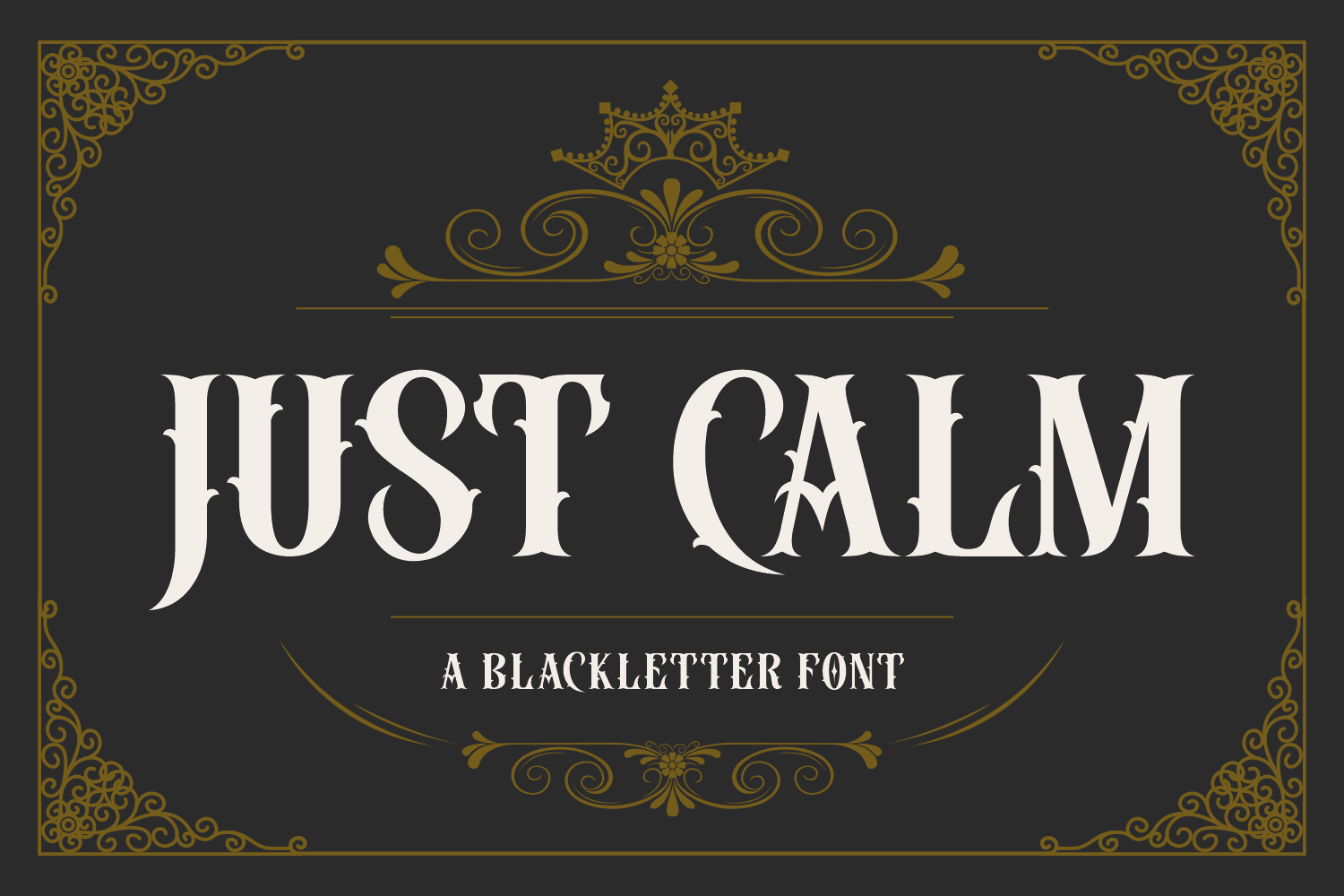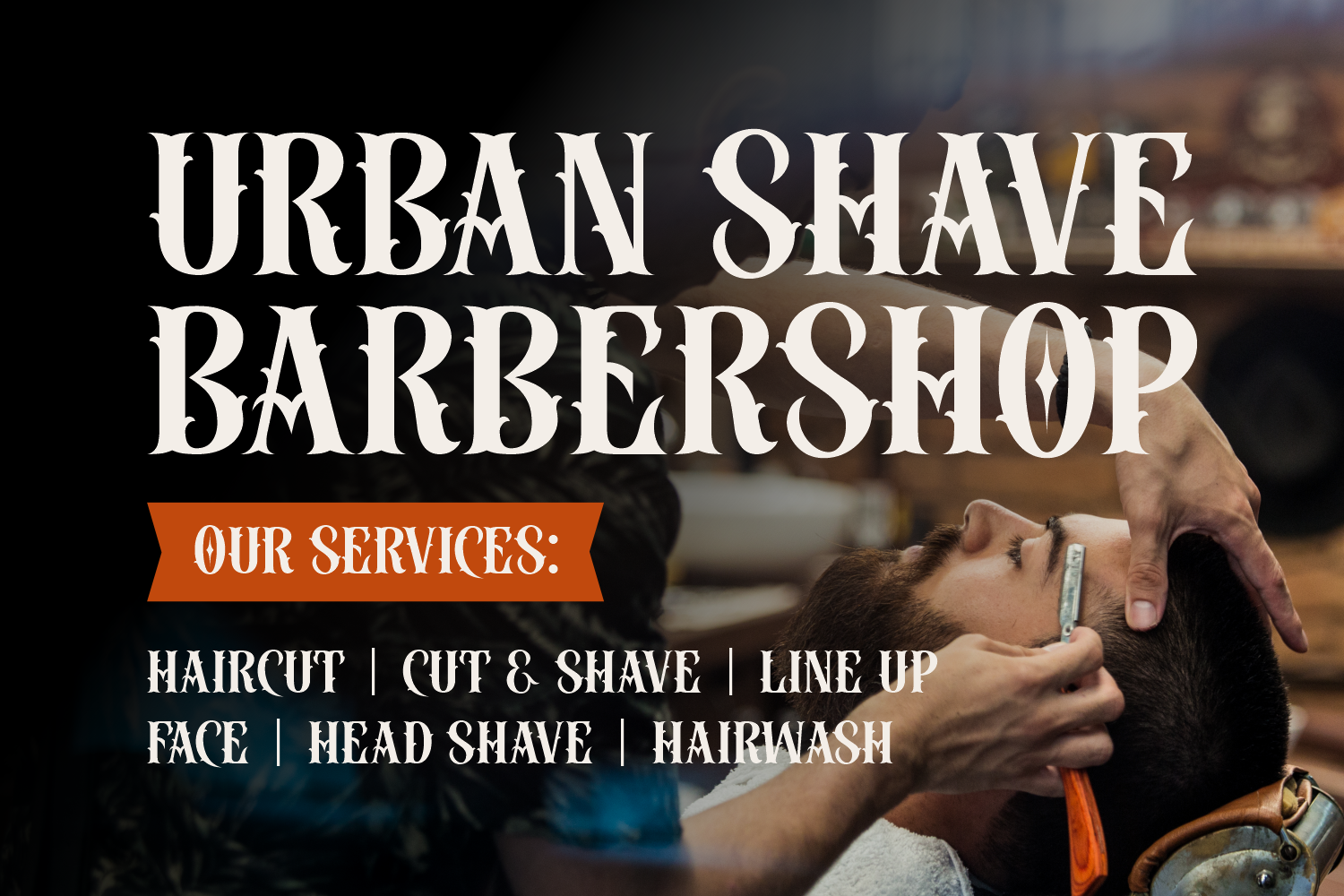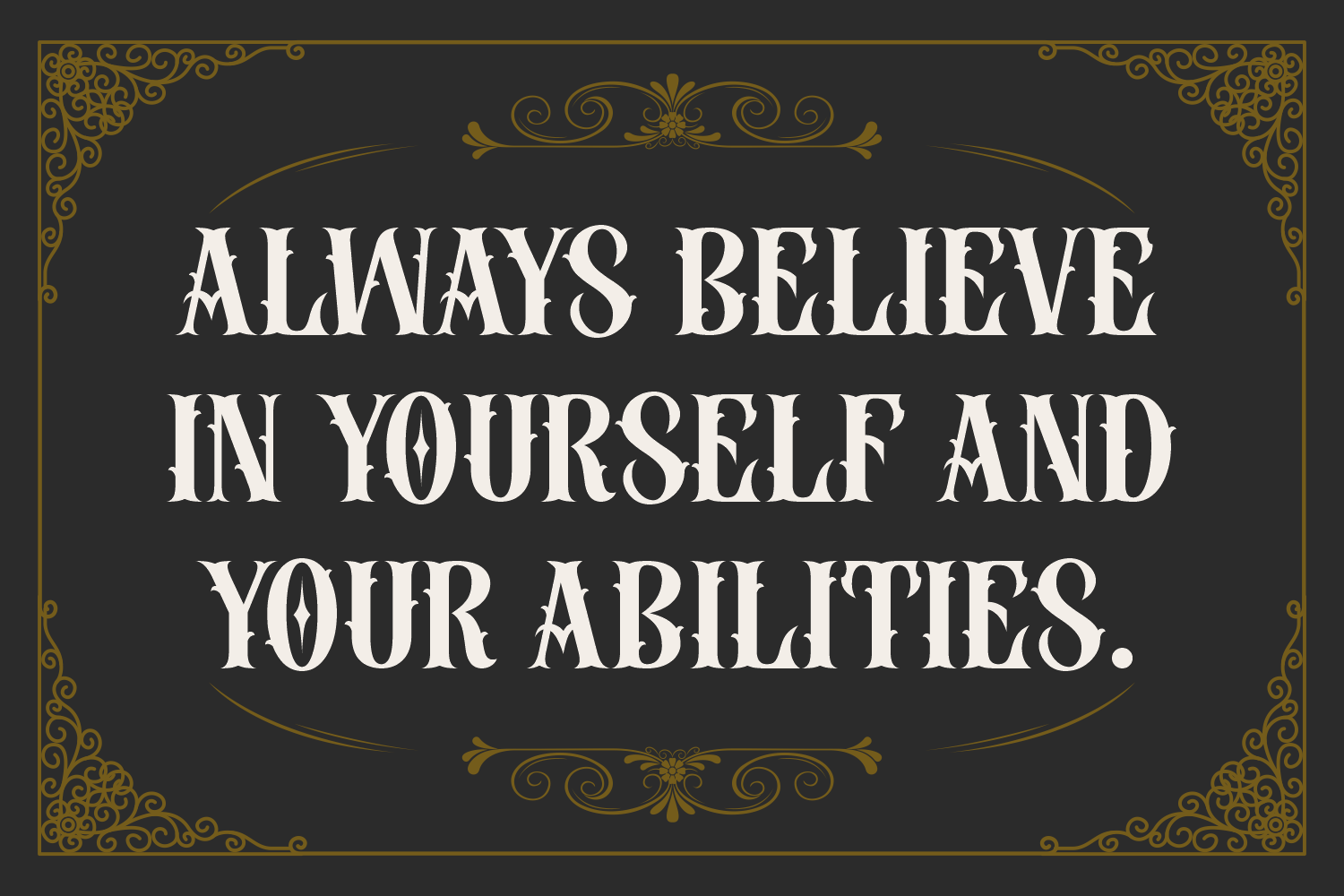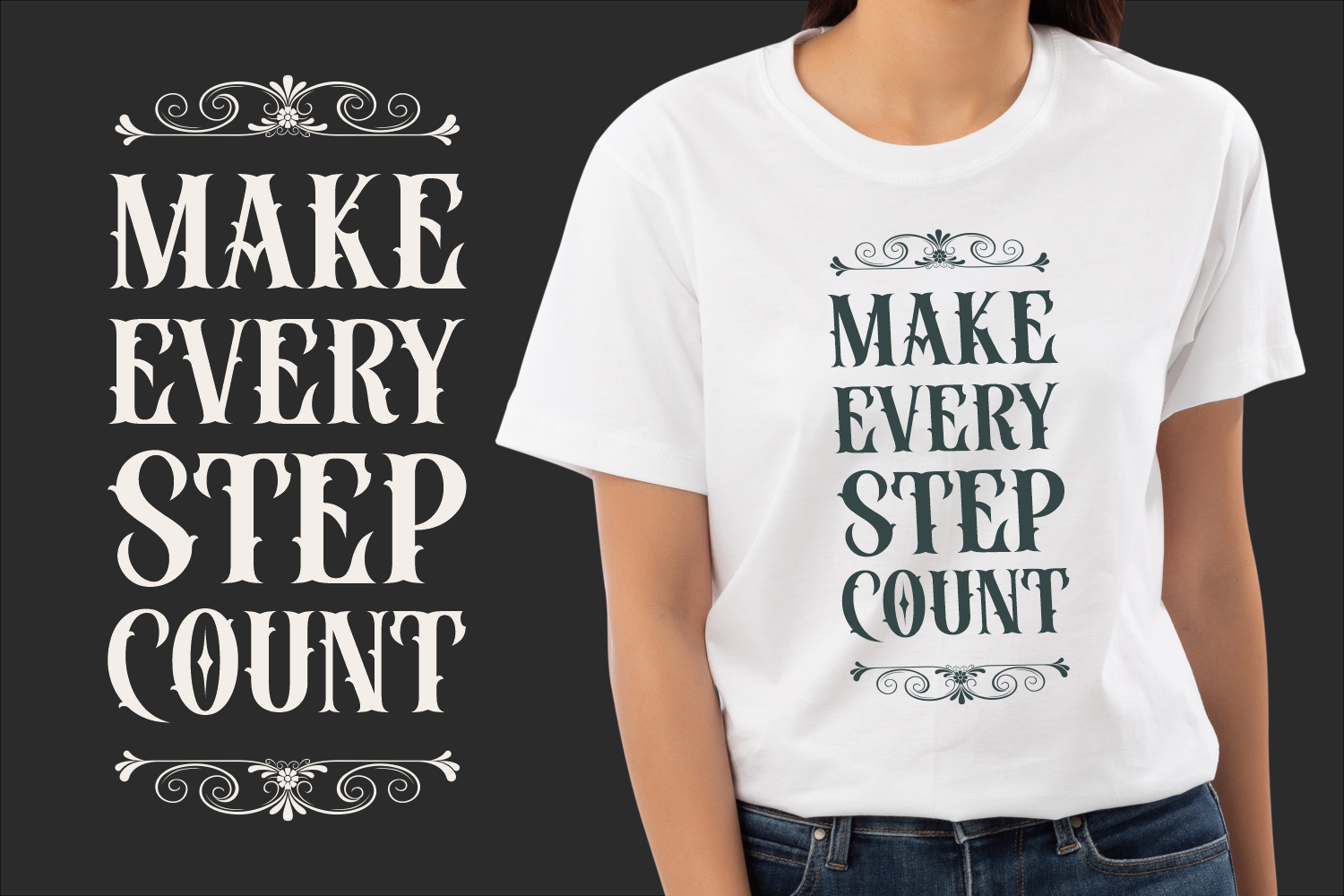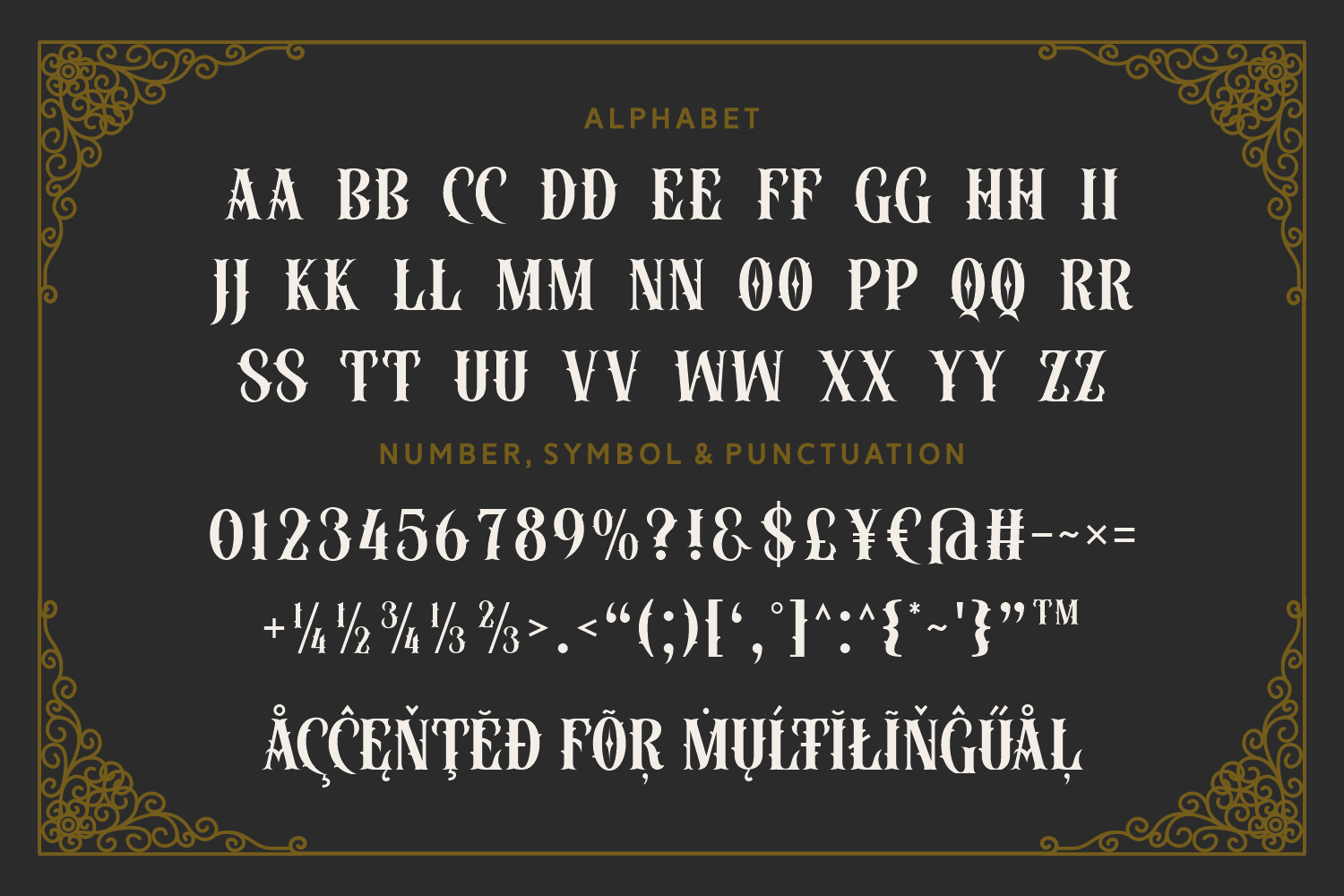
Just Calm is a refined blackletter font with ornate detailing and a calm gothic elegance. Great for luxury branding, invitations, or classic poster designs with a medieval touch.